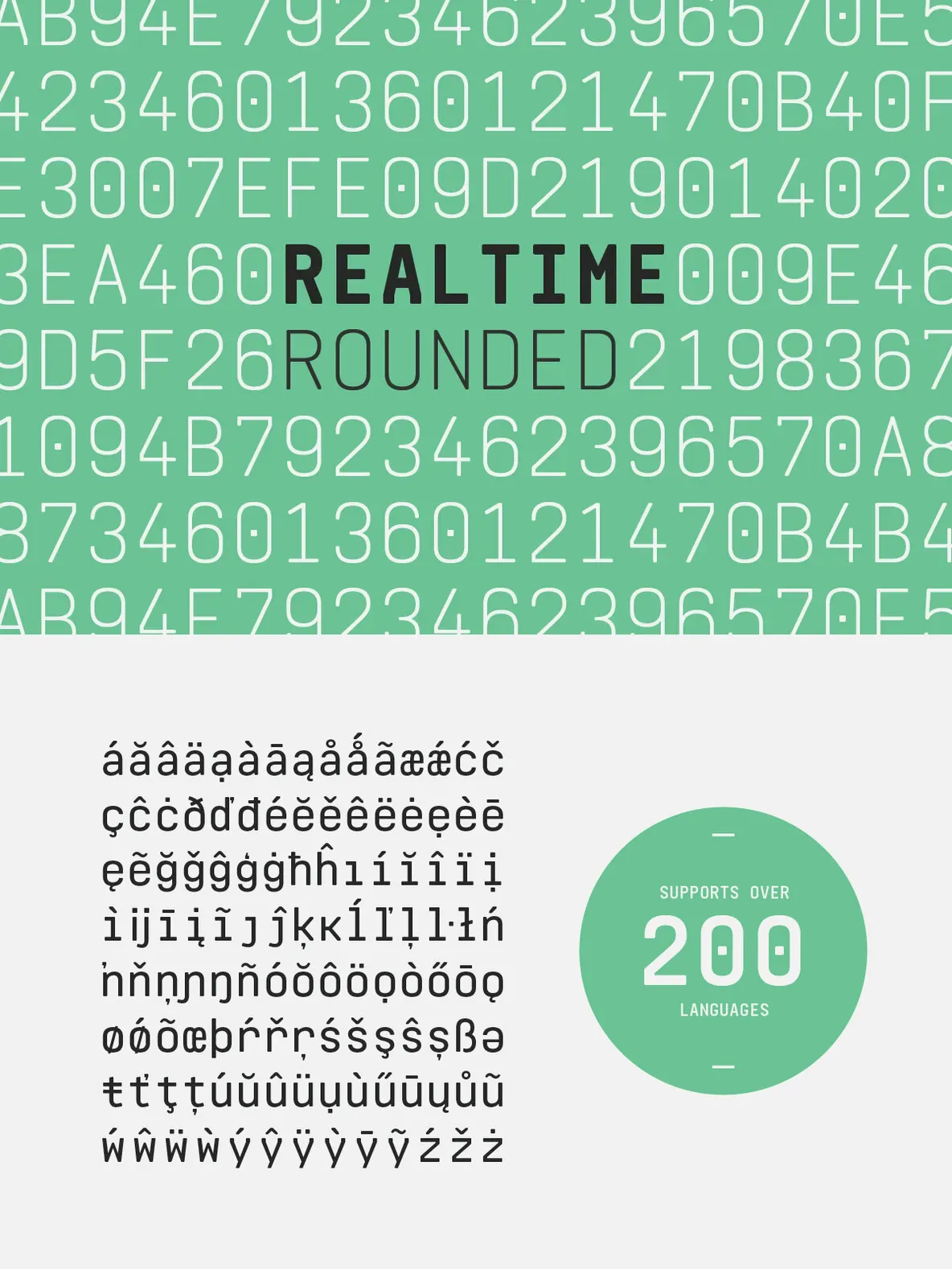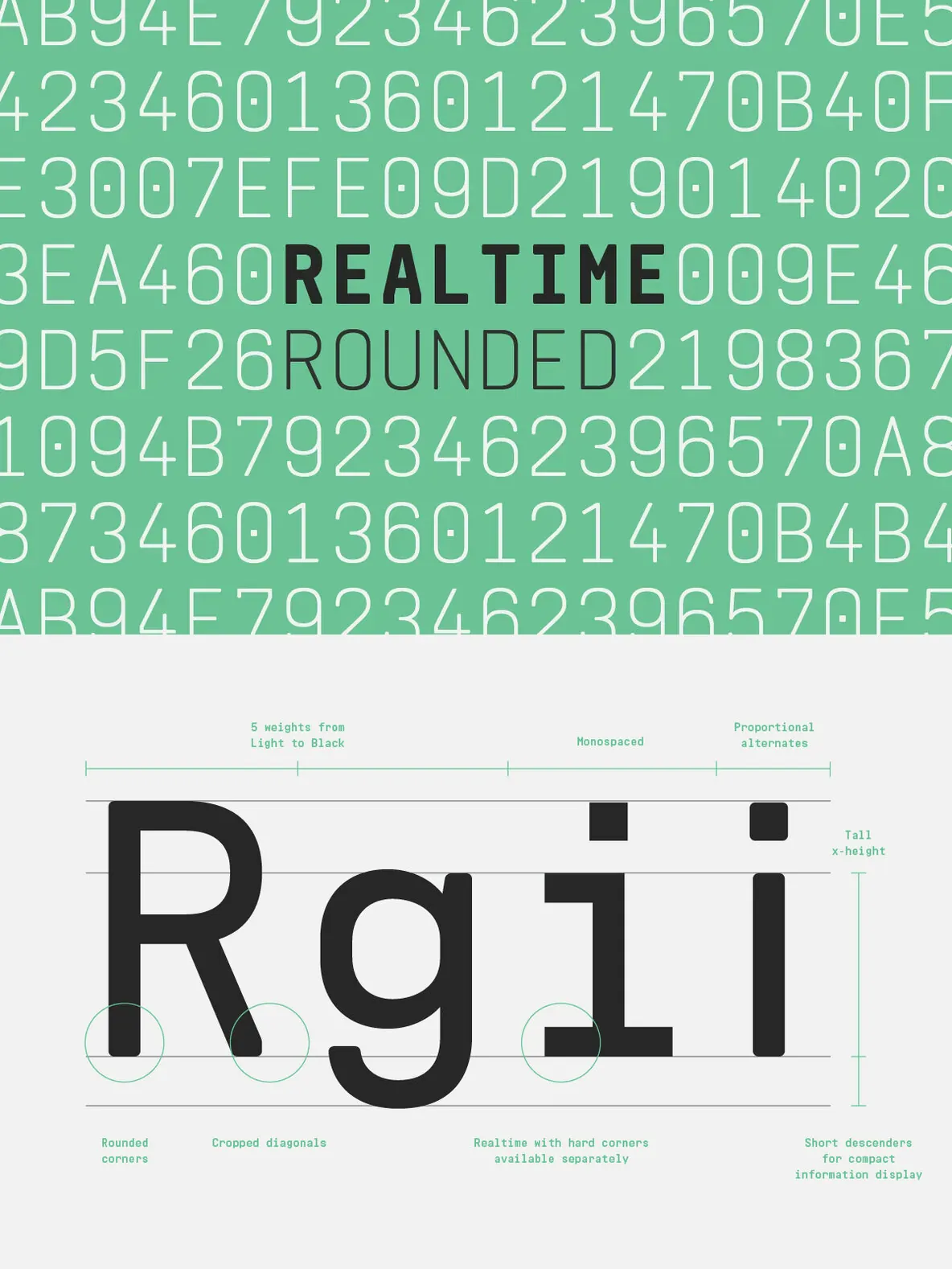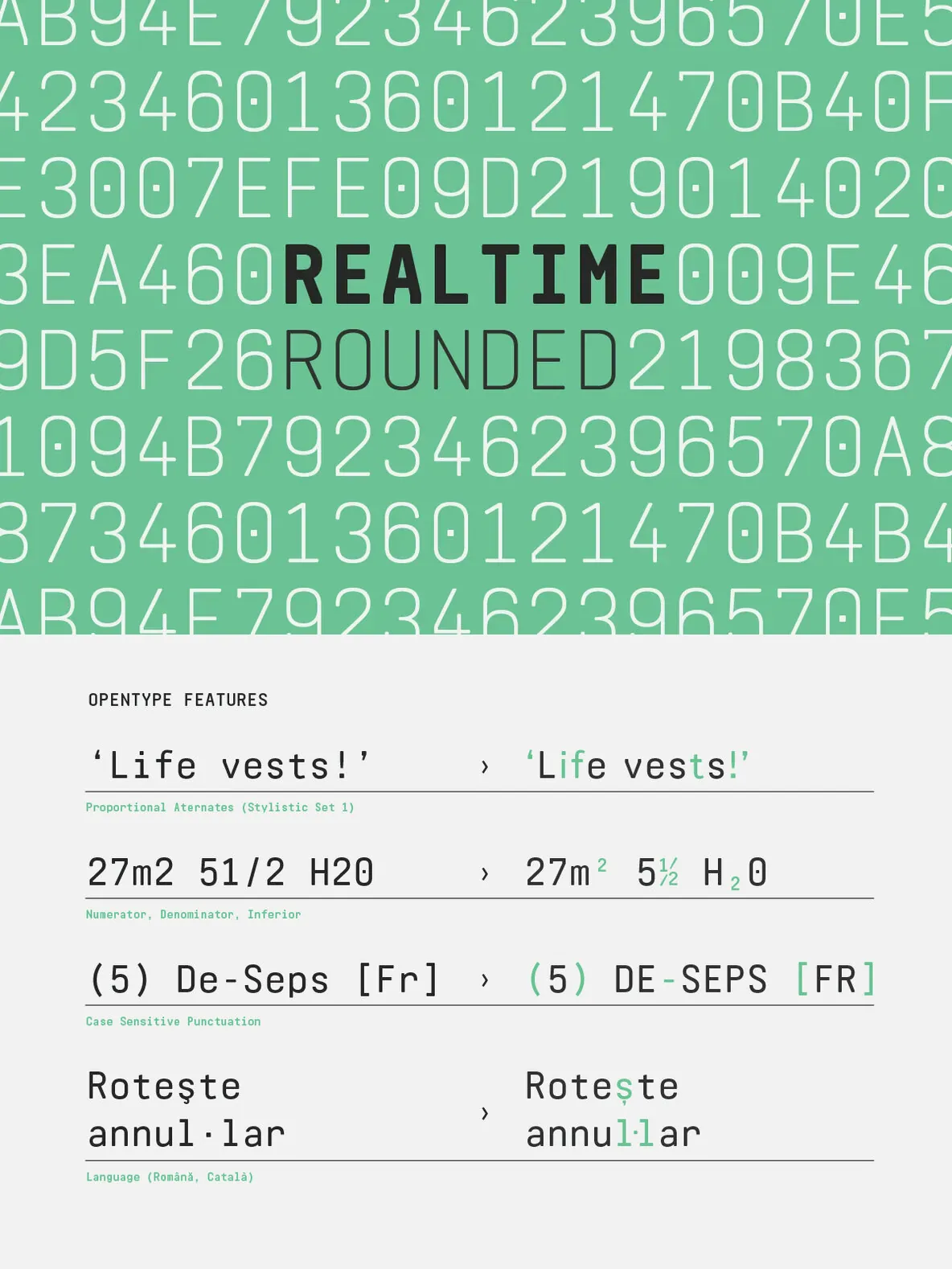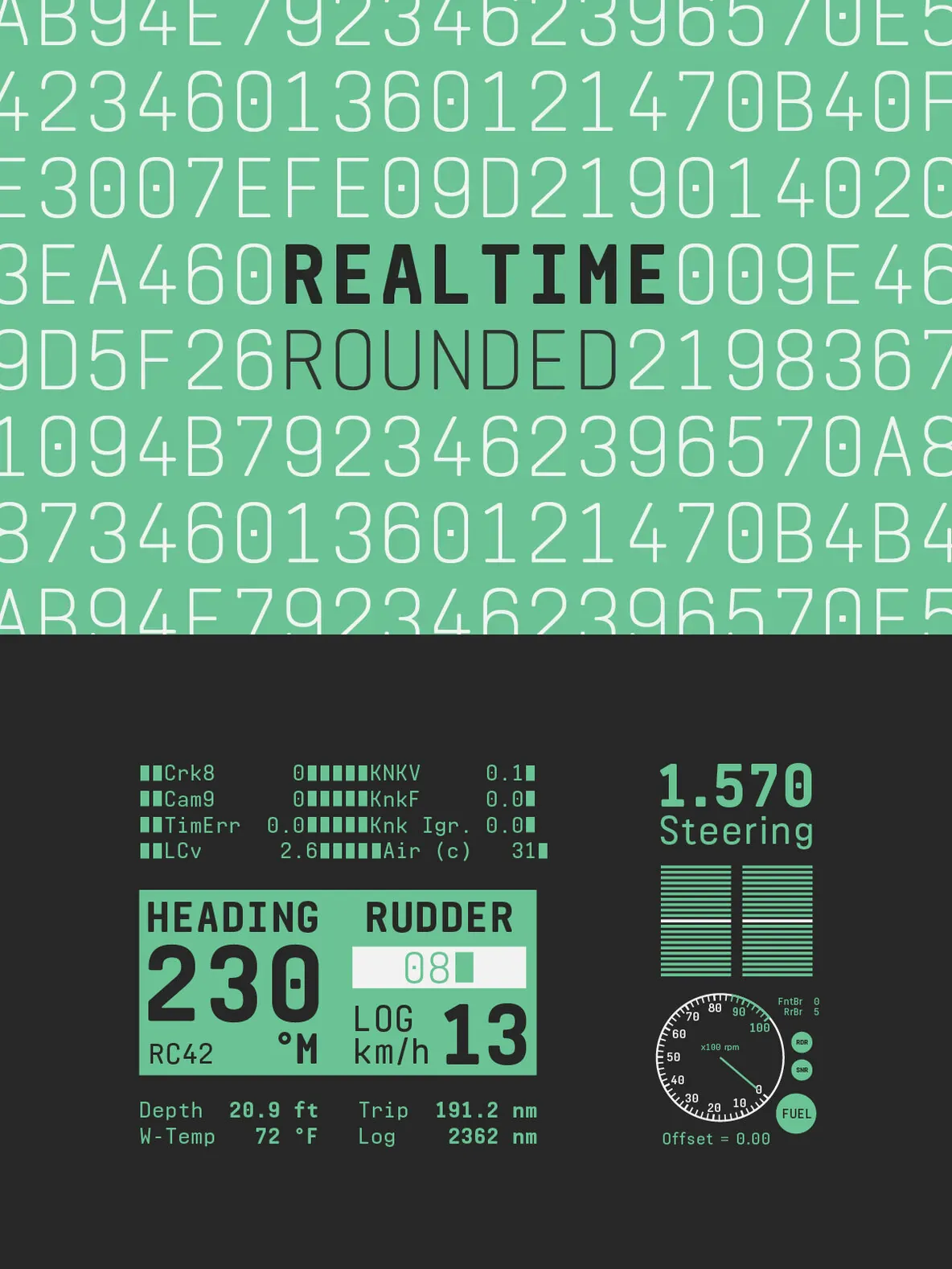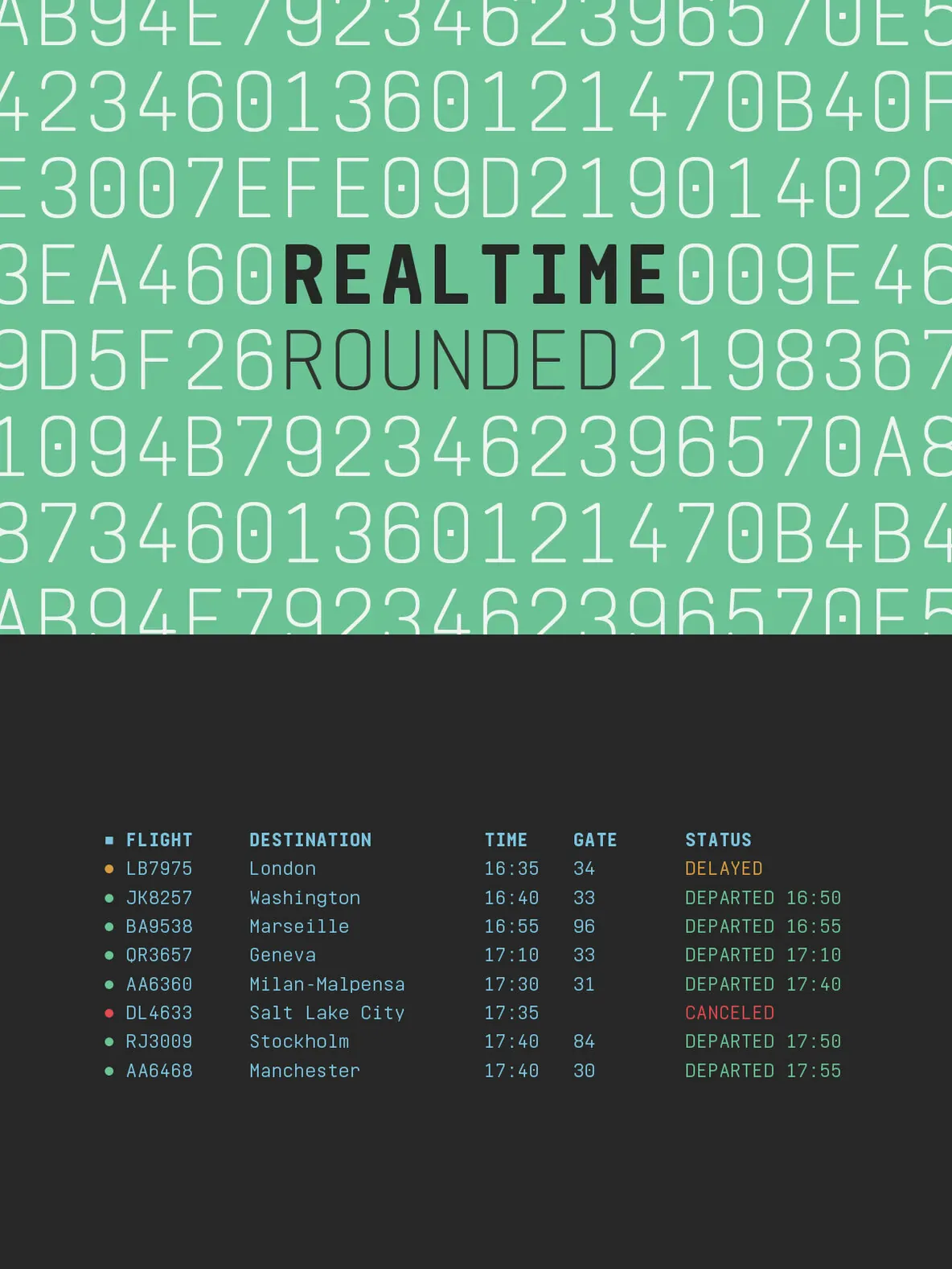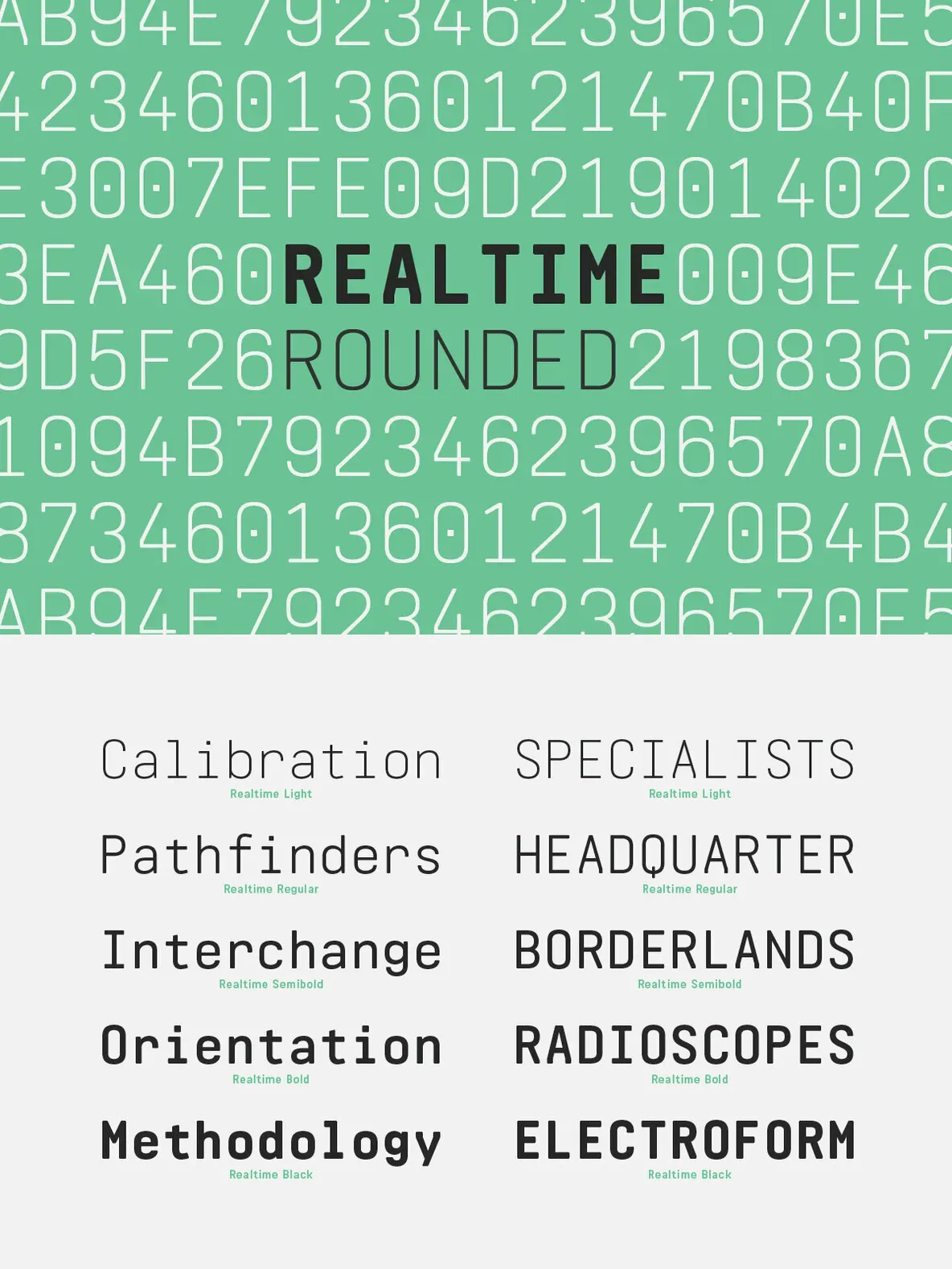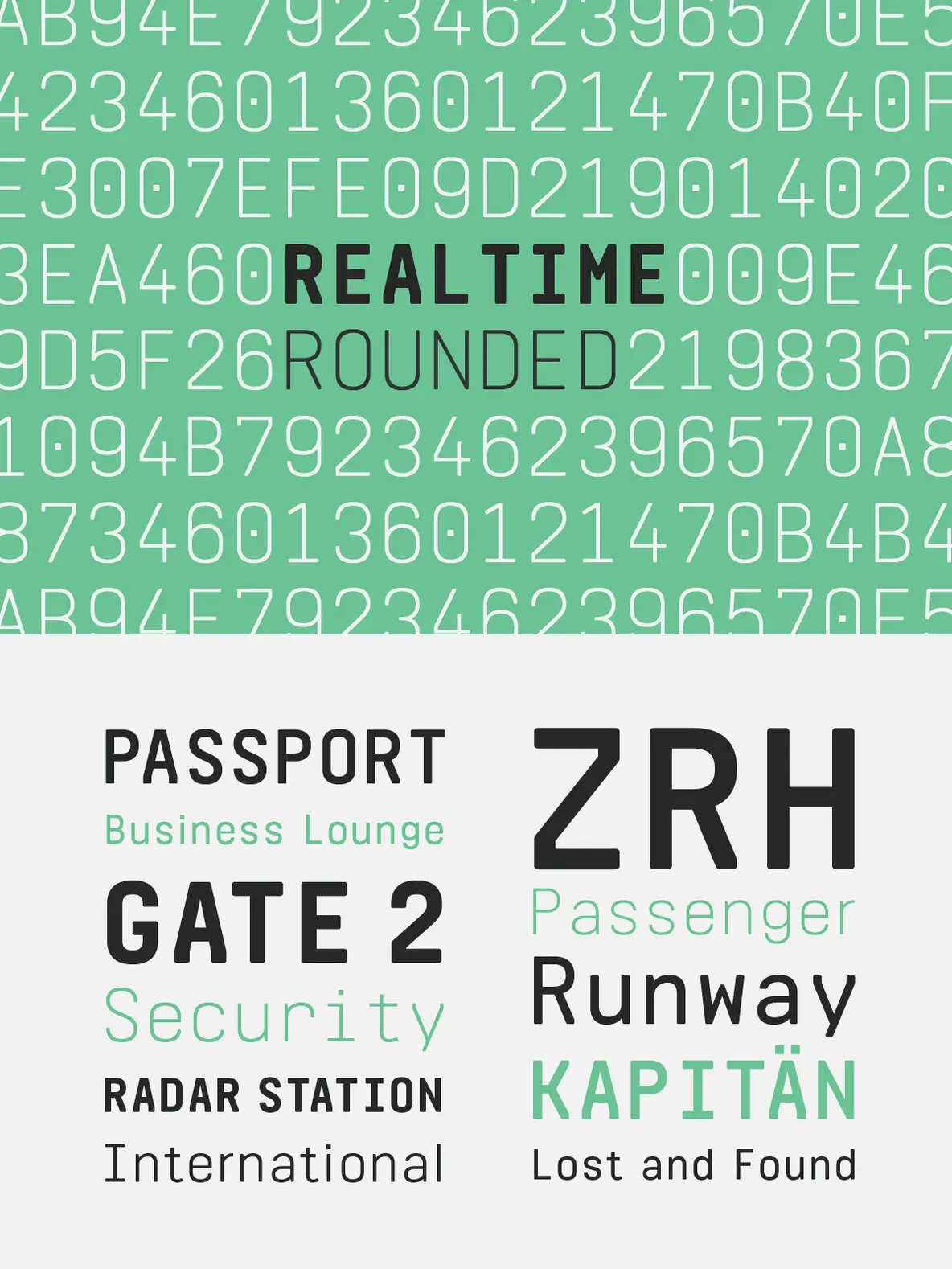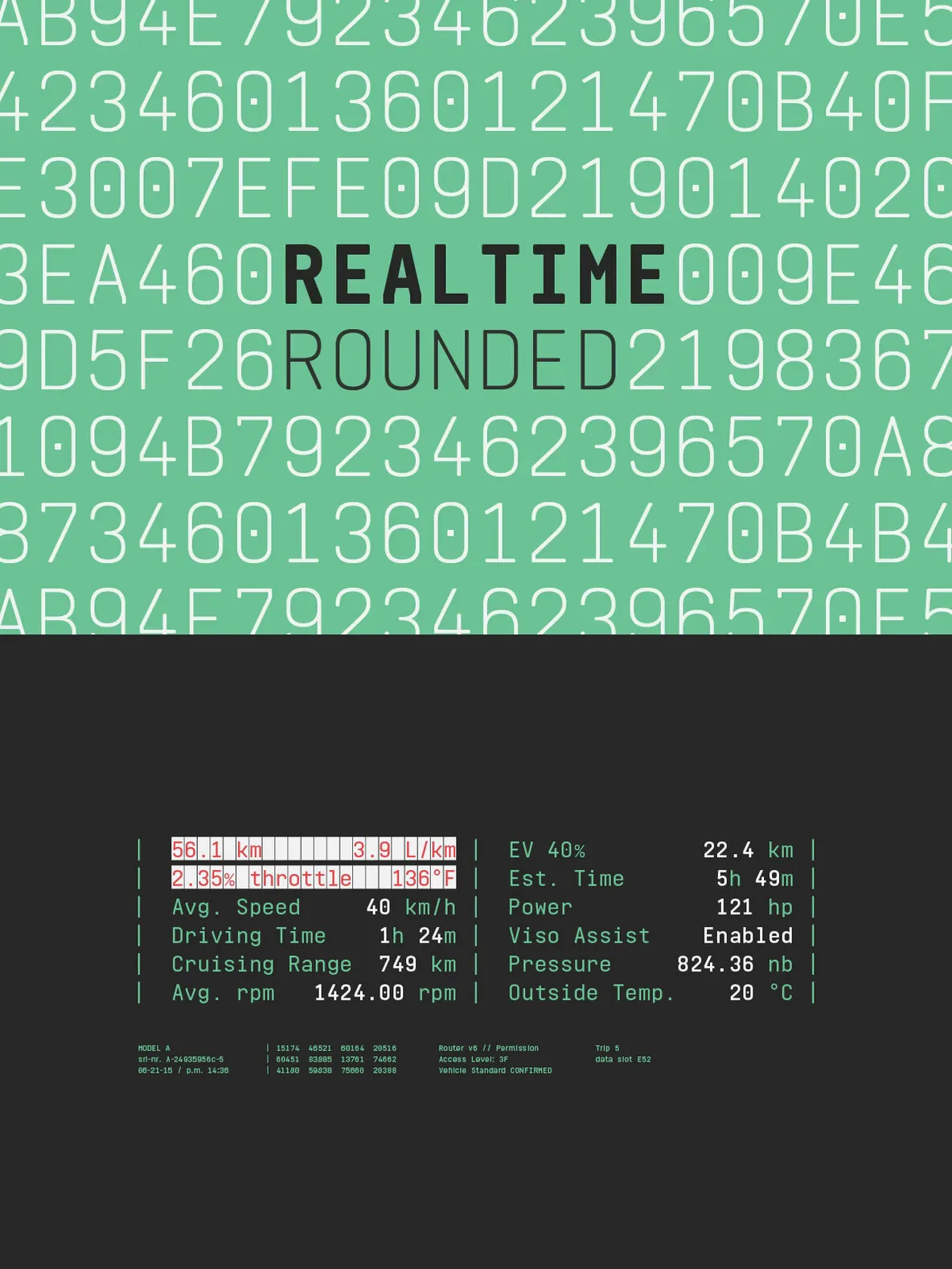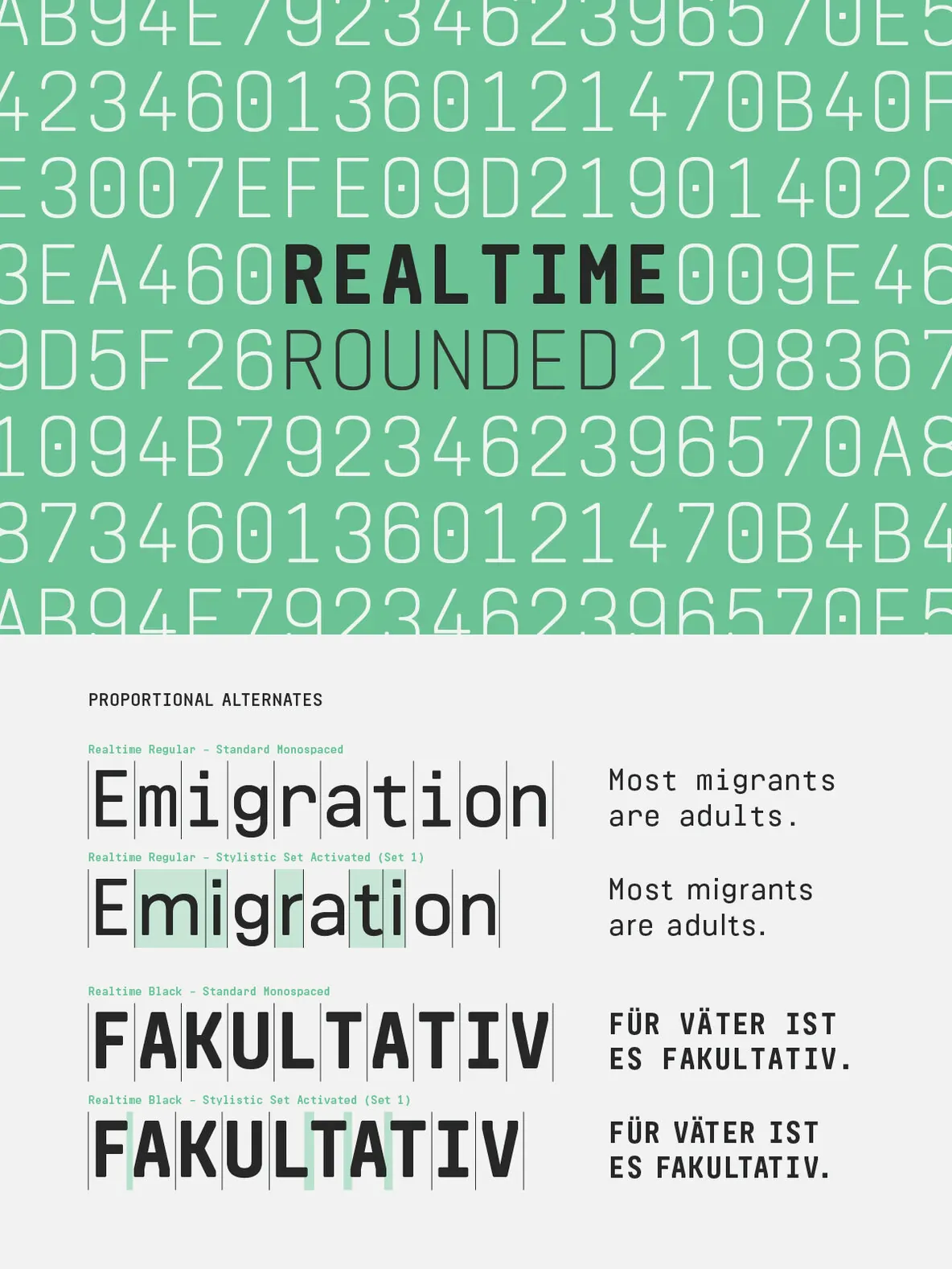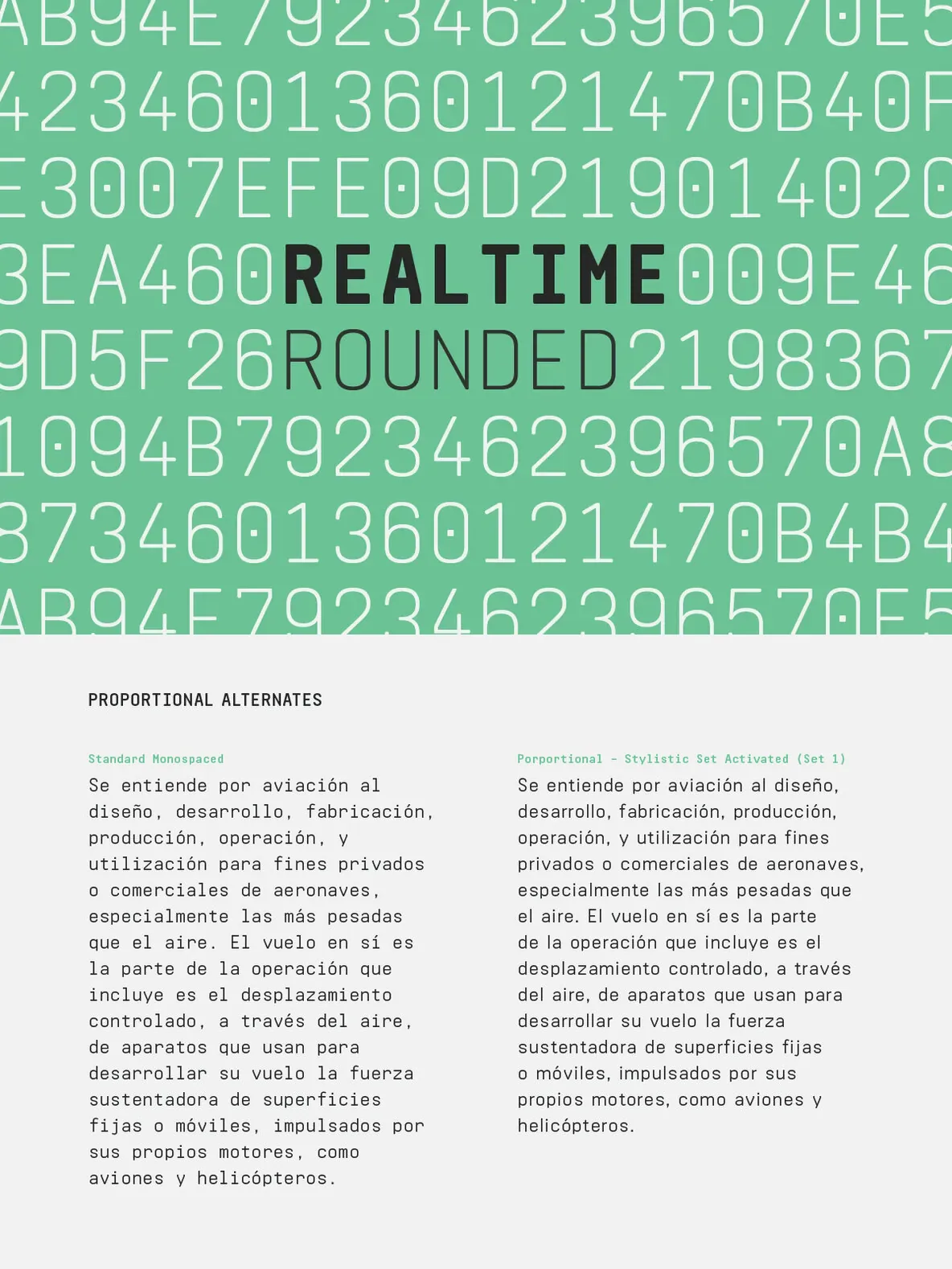
Realtime Rounded Font
Realtime Rounded — Technical warmth, clear rhythm
Information displays have an aesthetic of their own. Functional design where transmission of information is key—and best in real time. Designed by Juri Zaech, Realtime Rounded takes inspiration from those environments without recreating their look. The result is a technical yet friendly typeface, with details that support both function and visual impact. Soft edges add warmth to an otherwise precise, utilitarian tone.
As a monospaced typeface, it suits tabular designs, sturdy columns, and tidy layouts. Realtime Rounded also includes a proportional design for setting continuous text, available through OpenType. The family comes in five weights, from light to black, and includes a character set that covers over 200 Latin languages. Realtime Rounded is the soft companion to the standard Realtime Typeface, available separately.